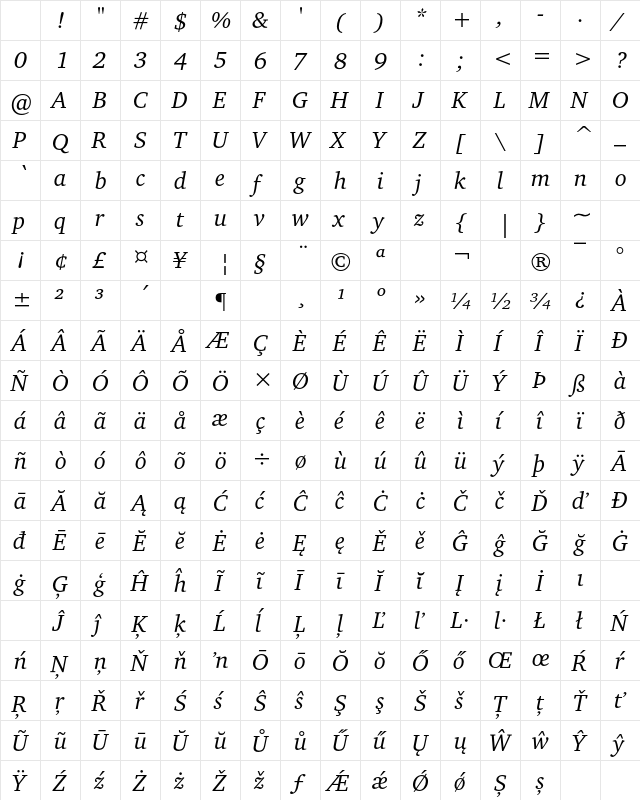
Complete Charter BT Pro Italic glyph index. Displaying only characters natively supported by Charter BT Pro Italic font.
Charter BT Pro is a composed and adaptable typeface that performs quietly and consistently across a wide range of design contexts. The slanted form adds forward momentum and visual energy.
Pro Tip: Use Charter BT Pro for emphasis, pull quotes, and subheadings where its slanted energy can add rhythm to the layout.